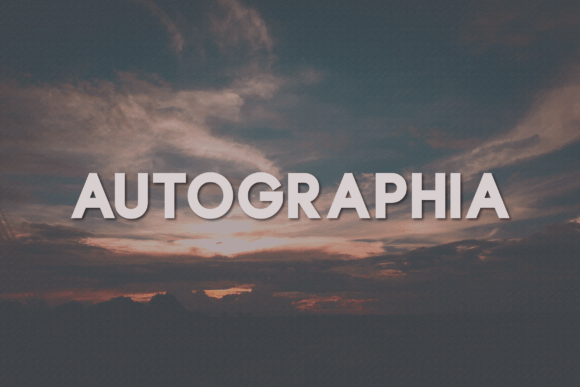
Introducing Autographia: The Modern, Classy Sans Serif Font You Need
I’ll never forget the time I was working on a wedding invitation project, and my client asked for a font that was both elegant and modern. I scoured the internet, tried out countless fonts, but nothing seemed to fit the bill. That was until I stumbled upon Autographia, a stunning sans serif typeface that has since become a staple in my design toolkit.
Autographia is more than just a font – it’s a design solution. With its clean lines, sophisticated aesthetic, and versatility, it’s perfect for a wide range of projects, from logos and weddings to invitations, quotes, advertisements, print, magazines, and more!
What I Love About Autographia
So, what makes Autographia so special? Here are a few things that I absolutely love:
• ✨ Clean and modern design: Autographia’s sans serif design makes it perfect for projects that require a sleek, contemporary look.
• ✅ Extensive character set: The font includes upper characters, numbers 0-9, and a range of punctuation and symbols, making it incredibly versatile.
• 💡 Easy to read: Autographia’s clear and concise design makes it easy to read, even at smaller font sizes.
While Autographia is an amazing font, it’s not perfect. Here are a few small quirks to keep in mind:
• 🤔 Limited italic options: Autographia doesn’t have a traditional italic style, which may be a limitation for some projects.
• ⚠️ Not suitable for body text: While Autographia is easy to read, its modern design may not be the best choice for large blocks of body text.
The Backstory of Autographia
Autographia was designed with the goal of creating a modern, classy sans serif font that would be perfect for a wide range of design projects. The designer drew inspiration from classic typography and modern design trends to create a font that’s both elegant and versatile.
Is Autographia suitable for body text? While Autographia is easy to read, its modern design may not be the best choice for large blocks of body text.